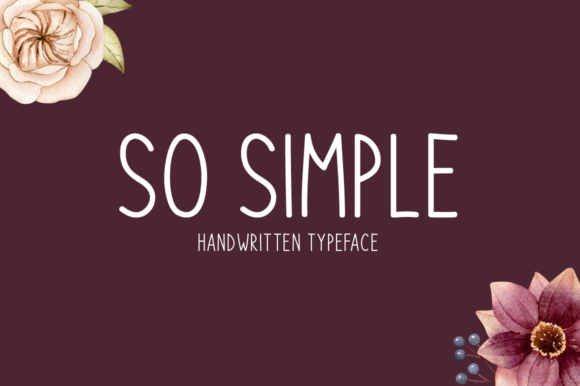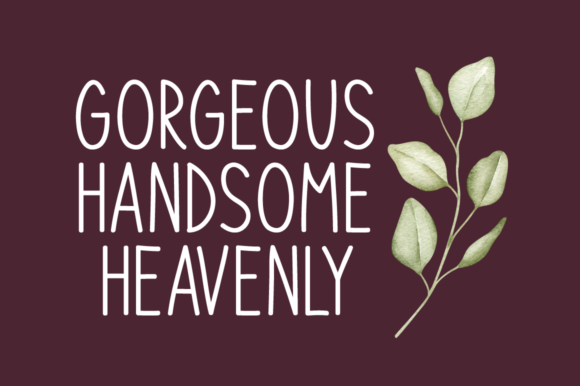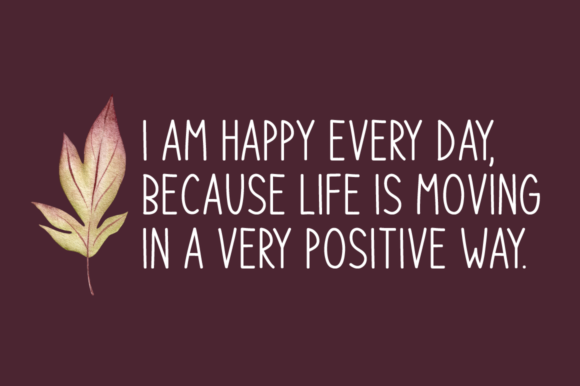
About So Simple Font
So Simple is a thin lettered and clean handwritten font, that can be used for all chalkboard quotes or teaching material! Its authentic look will add a personal and realistic feel to your designs.